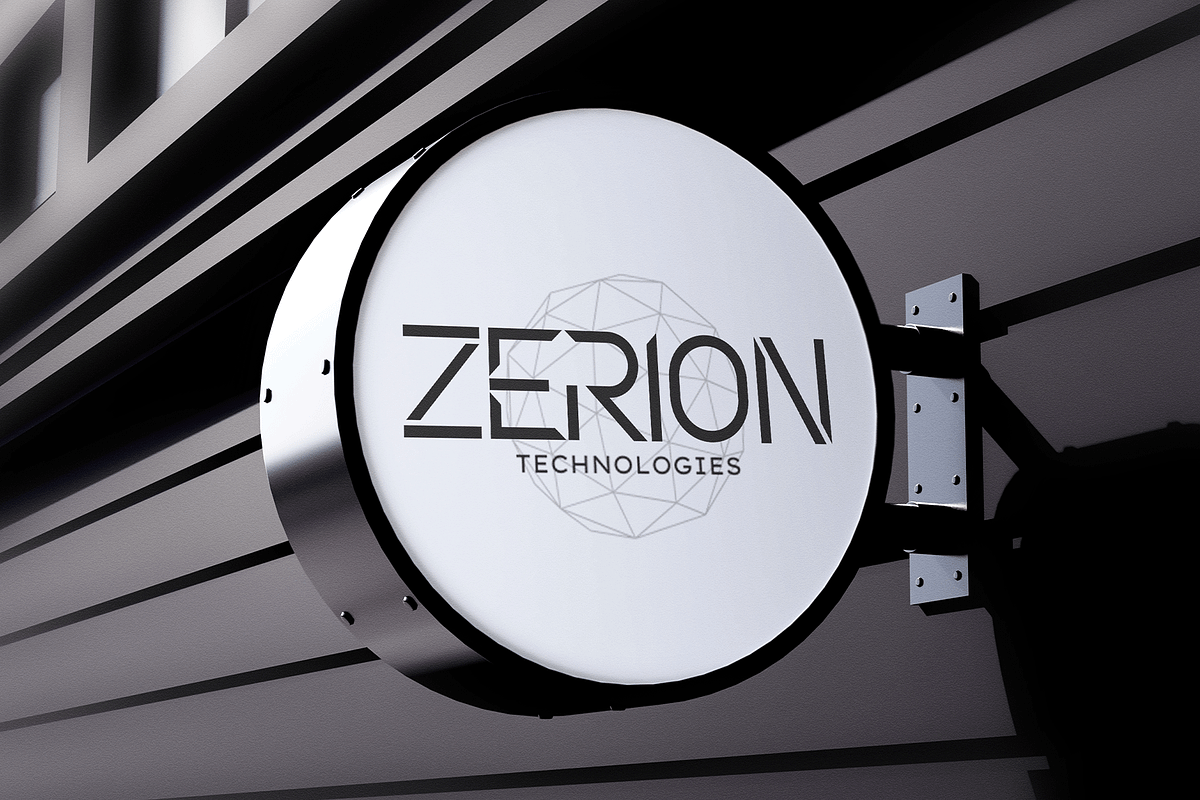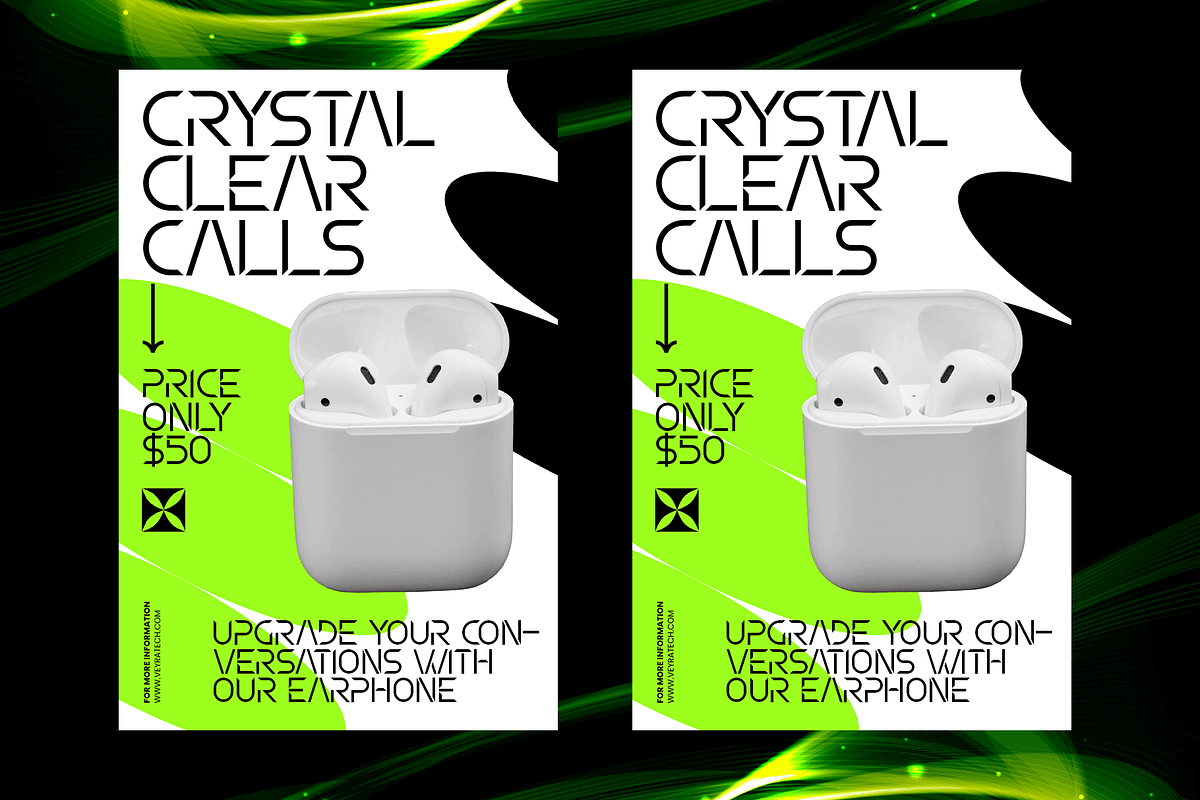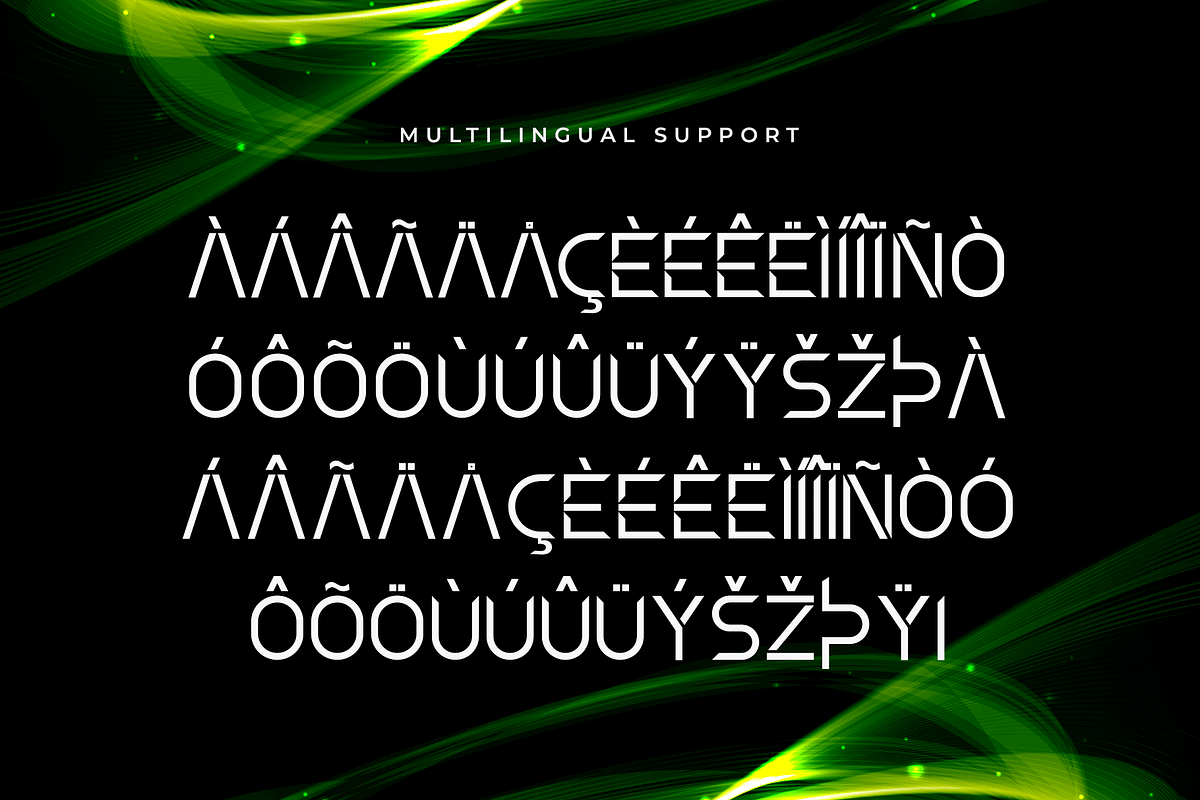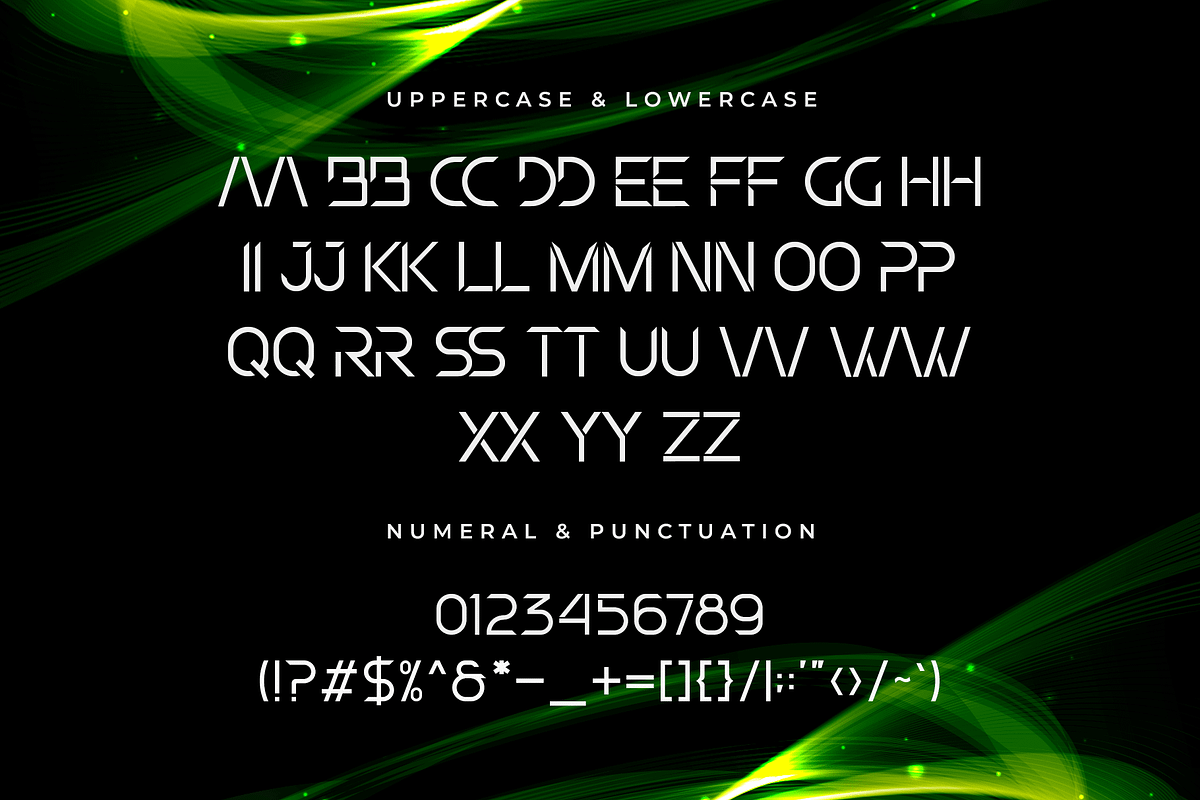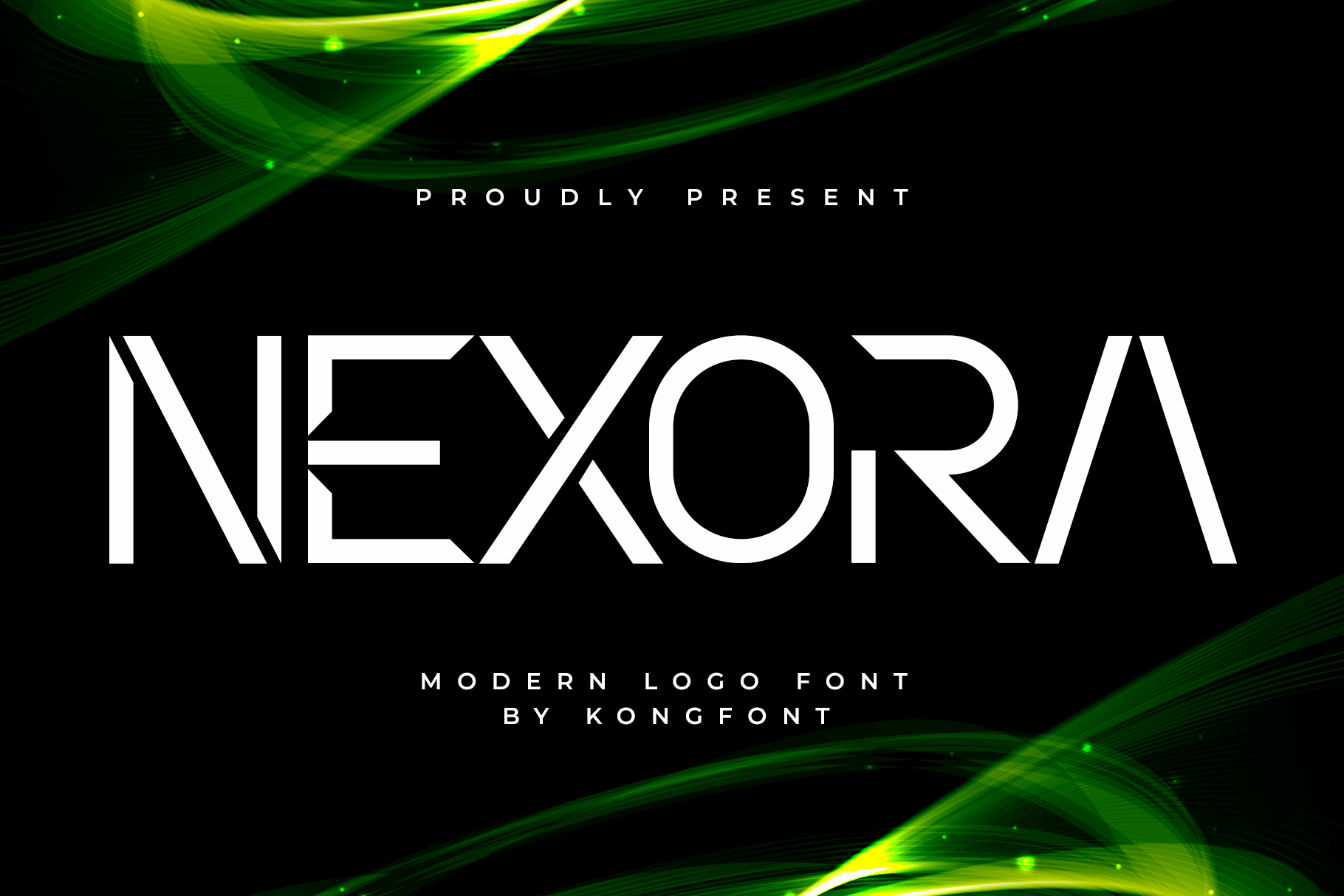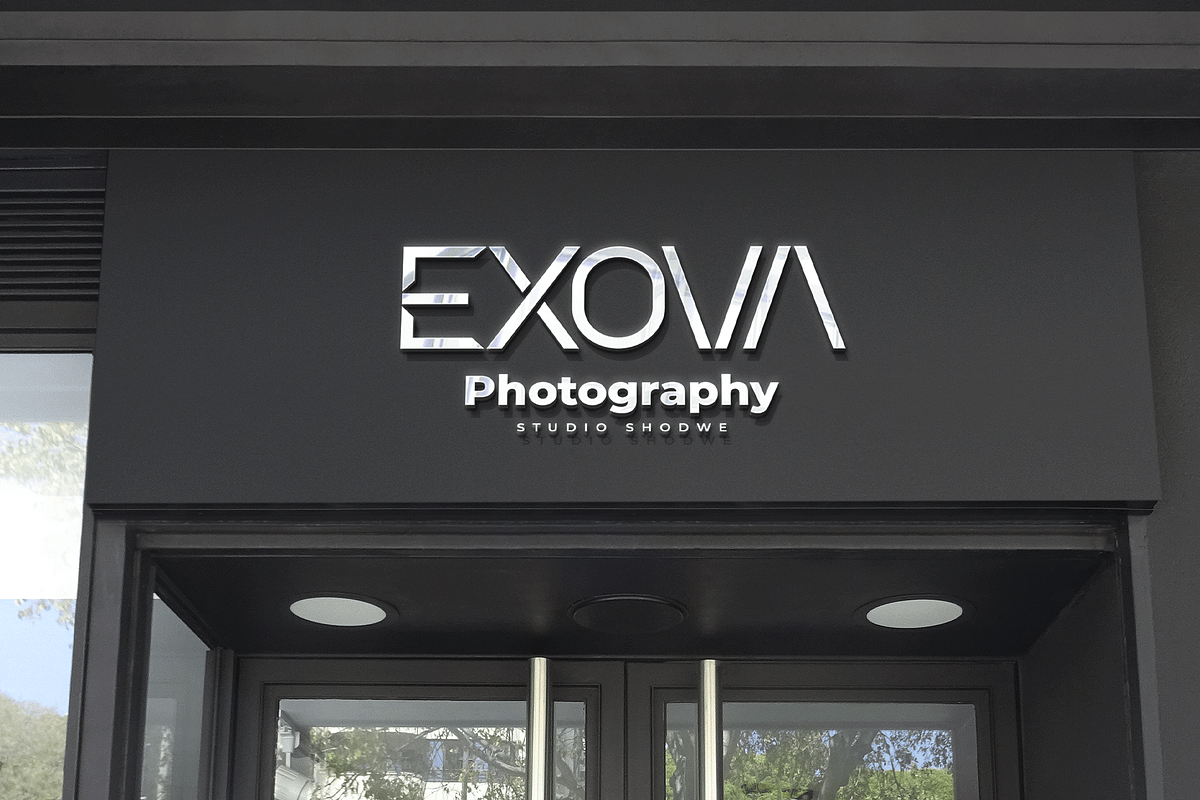
Nexora – Modern Logo Font
Introducing Nexora, a modern logo typeface crafted for brands that demand a clean, confident, and contemporary presence. With its geometric precision and balanced letterforms, Nexora offers a minimalist yet striking design perfect for creating memorable logos, bold headlines, and sleek product packaging.
Designed for versatility, Nexora works beautifully across digital platforms and print media, making it an ideal choice for tech companies, fashion brands, creative studios, and forward-thinking businesses. Its sharp edges and refined curves convey professionalism while maintaining a modern, approachable feel.
From high-impact branding to subtle corporate identity, Nexora is the go-to font for projects that require both style and substance. Elevate your designs with a typeface that communicates clarity, sophistication, and strength in every character.